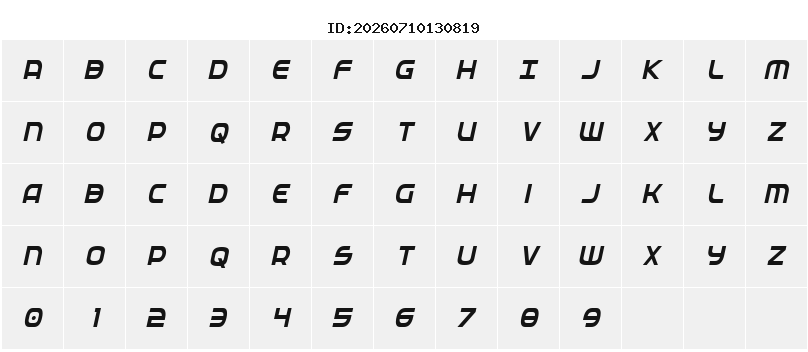
Federal Service Condensed Italic Preview
• Font Name: Federal Service Condensed Italic
• Font Style: Condensed Italic
• Full Font Name: Federal Service Condensed Italic
About Federal Service Condensed Italic.ttf
Federal Service Condensed Italic.ttf is a modern, elegant sans-serif font designed for ultimate readability and visual harmony. Perfect for branding, headlines, web design, and print materials.